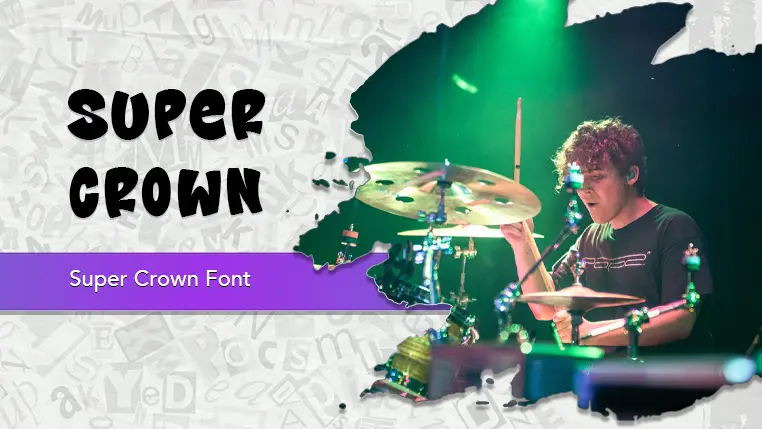
The Super Crown font family may be ideal for you if you enjoy working on an artistic design project. The lively, expressive look of this typeface, which was created by Francisco Suarez, makes it ideal for Logos and branding for streetwear, indie music labels, or urban art projects, Posters and flyers for concerts, music festivals, or extreme sports events, Graphics for social media content targeting a younger, trend-conscious audience, Album covers or single art for rock, hip-hop, or alternative music genres, T-shirt designs, merchandise, or custom apparel. Artistic posters, banners, or wall art. Titles for vlogs or creative video content. Magazine headlines, book covers, or chapter titles where a strong, eye-catching font is needed. and other light-hearted visual projects.
Regular are the one primary font styles of the Super Crown font family. You may build dynamic, visually appealing text layouts with the distinct flair that each style offers. With crisp, readable lines and a relaxed tone.